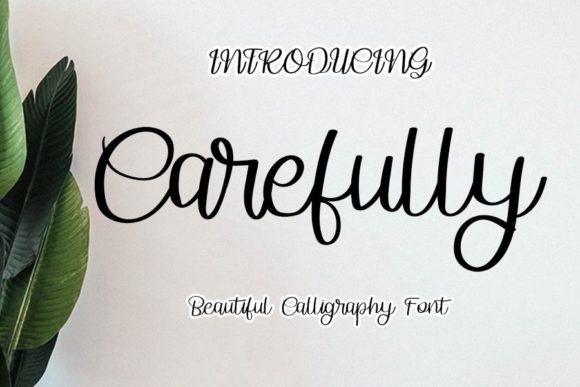
Prepare yourself to be captivated by Carefully, a mesmerizing script font that will leave you spellbound with its delicate beauty. Immerse yourself in the world of elegance and grace as you discover the allure of Carefully. Its enchanting curves and flowing lines will add a touch of romance and sophistication to any project, making it the perfect choice for creating stunning wedding invitations.
With Carefully, you have the power to transform your invitations into exquisite works of art. Its soft and inviting strokes will evoke a sense of timeless elegance, leaving a lasting impression on your guests. Let your imagination soar as you explore the endless possibilities that Carefully offers. Create invitations that are not just visually appealing but also convey the essence of your love and commitment.
Carefully is not merely a font; it's an experience that will ignite your creativity and captivate your senses. Its delicate details and subtle nuances will add a touch of magic to your wedding invitations, making them truly unforgettable. Embrace the beauty of Carefully and let your love story shine through in every stroke and curve.
But Carefully's allure extends far beyond wedding invitations. Its versatility knows no bounds, making it suitable for a wide range of projects. Whether you're designing greeting cards, logos, posters, or social media graphics, Carefully will add a touch of charm and sophistication that will leave your audience spellbound.
With Carefully, you have the power to create designs that are both timeless and captivating. Its elegant lines and sweeping curves will add a touch of luxury and refinement to any project, making it the perfect choice for businesses, artists, and creative professionals alike.
So why settle for ordinary when you can have extraordinary? Discover the enchanting world of Carefully and let your creativity flourish. Its beauty and versatility will leave you breathless, and its ability to transform your designs will astound you. Embrace Carefully and embark on a journey of creative expression that will leave an indelible mark on the world.